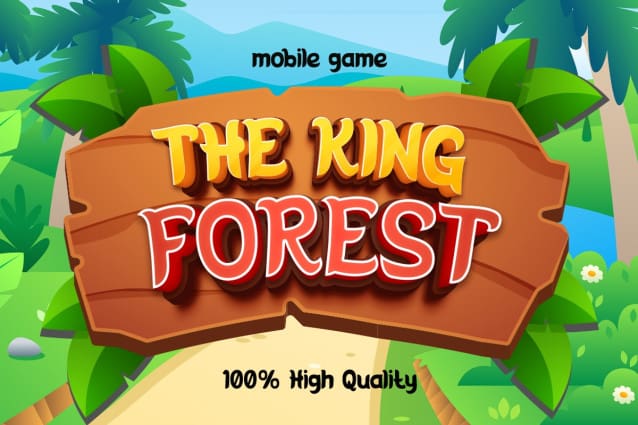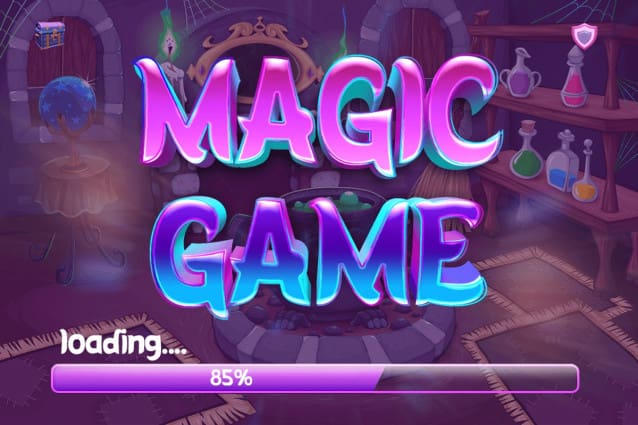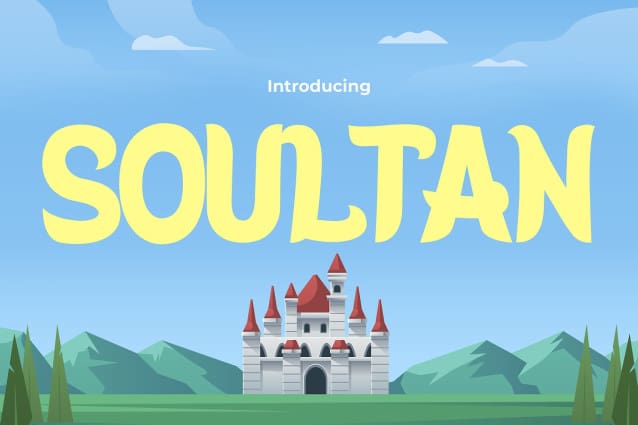
Soultan Playful Font
Soultan Playful Font a captivating font designed to infuse your designs with charm and imagination. Perfectly tailored for projects targeting children, games, and cartoons, SOULTAN brings forth a vibrant energy that ignites the spirit of playful exploration. Each letter is crafted with meticulous detail, radiating warmth and personality, making it an ideal choice for any creative endeavor seeking to captivate the hearts and minds of young audiences.
With Soultan Playful your designs come to life, bursting with joy and wonder at every turn. Whether you’re designing interactive games, colorful storybooks, or lively animations, this font adds a touch of magic, elevating your creations to new heights of delight. Let SOULTAN be your companion in crafting memorable experiences filled with laughter, adventure, and endless imagination.